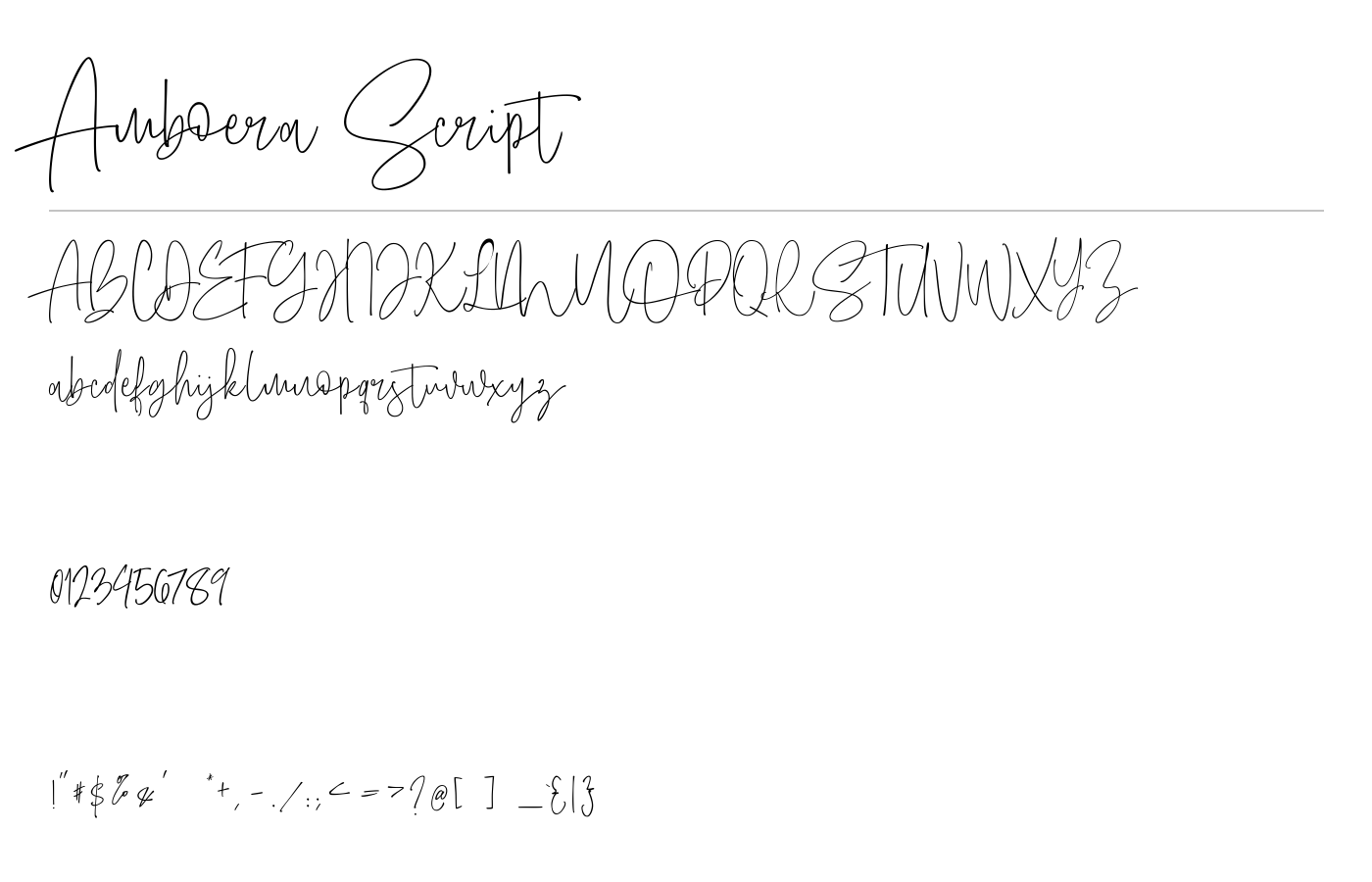
Amboera Script is a delicate, airy script font with thin, flowing lines that create an elegant and personal feel. Its tall, slightly irregular letterforms offer a handcrafted look perfect for stylish branding, wedding invitations, and creative projects where a graceful, intimate touch is desired. This font works best in large sizes like logos or headlines to showcase its intricate, artistic character.
Amboera Script Font
About Amboera Script Font